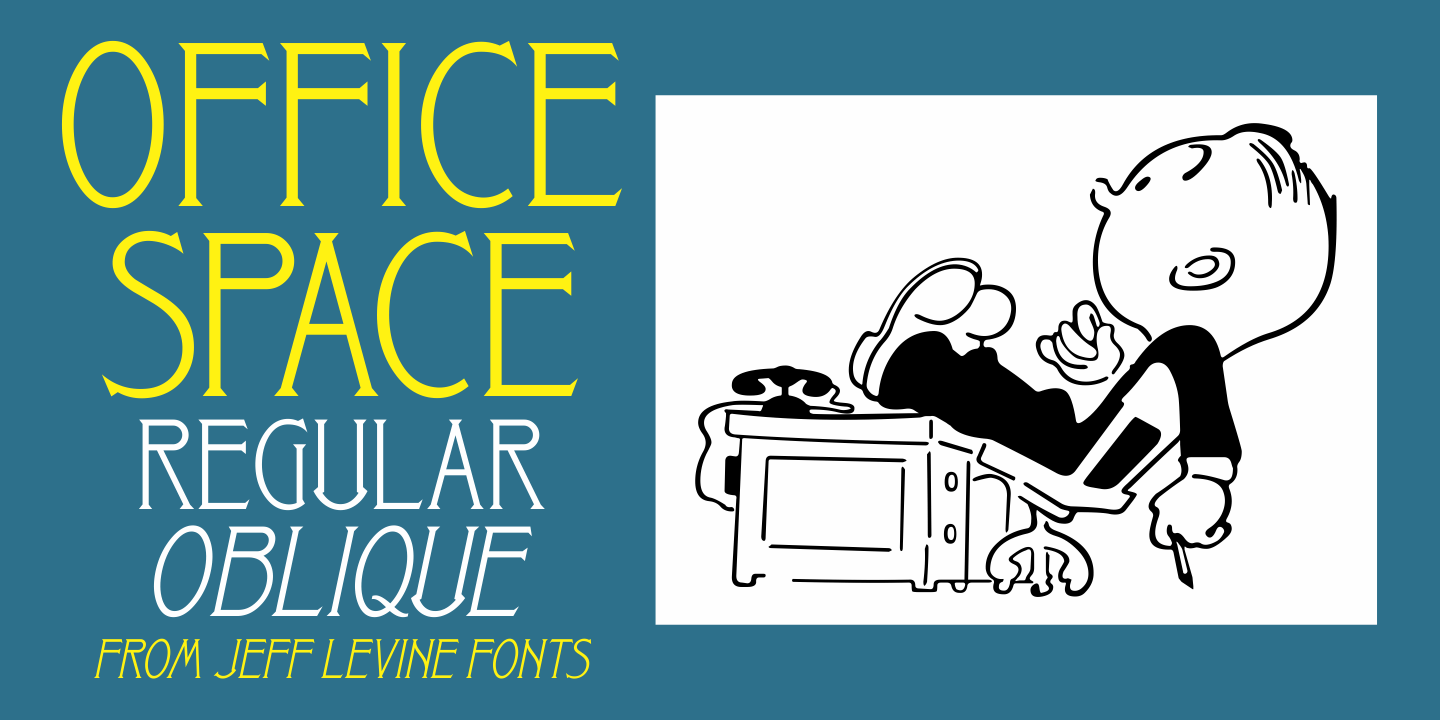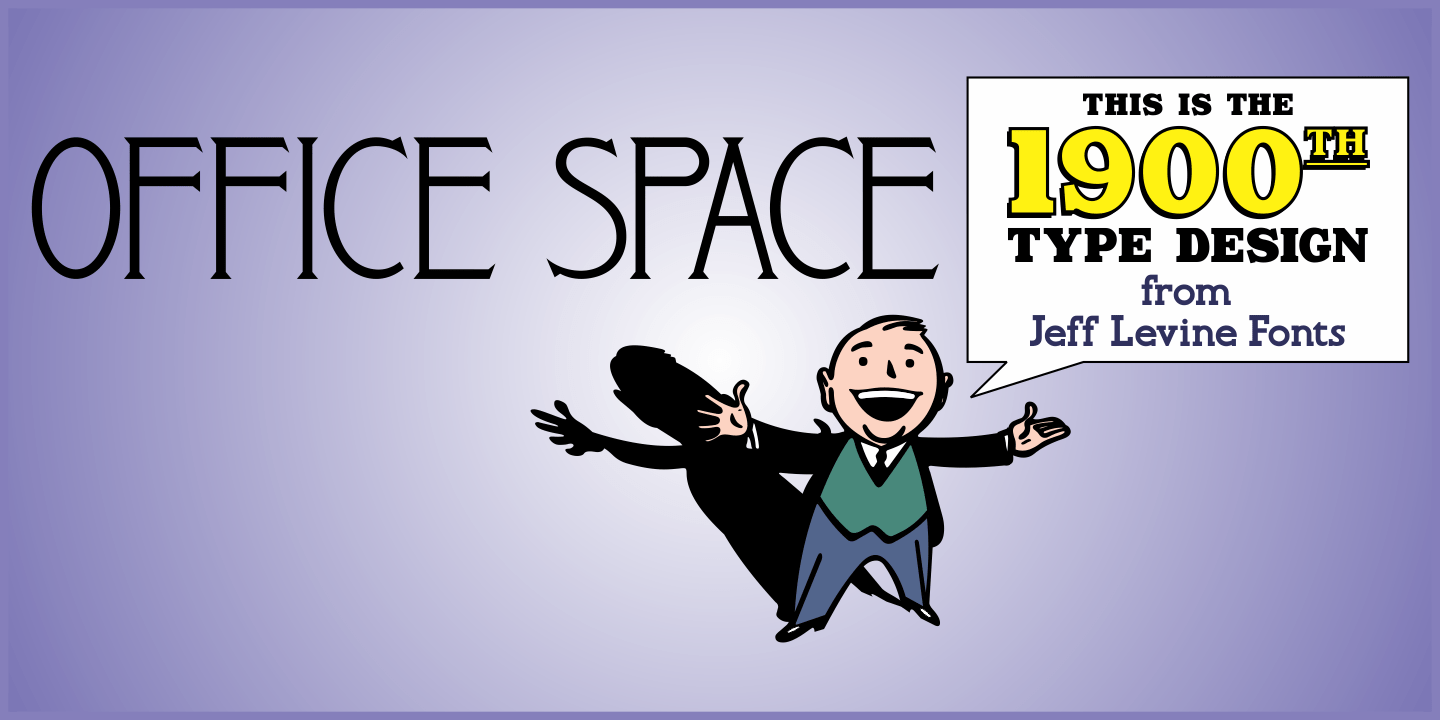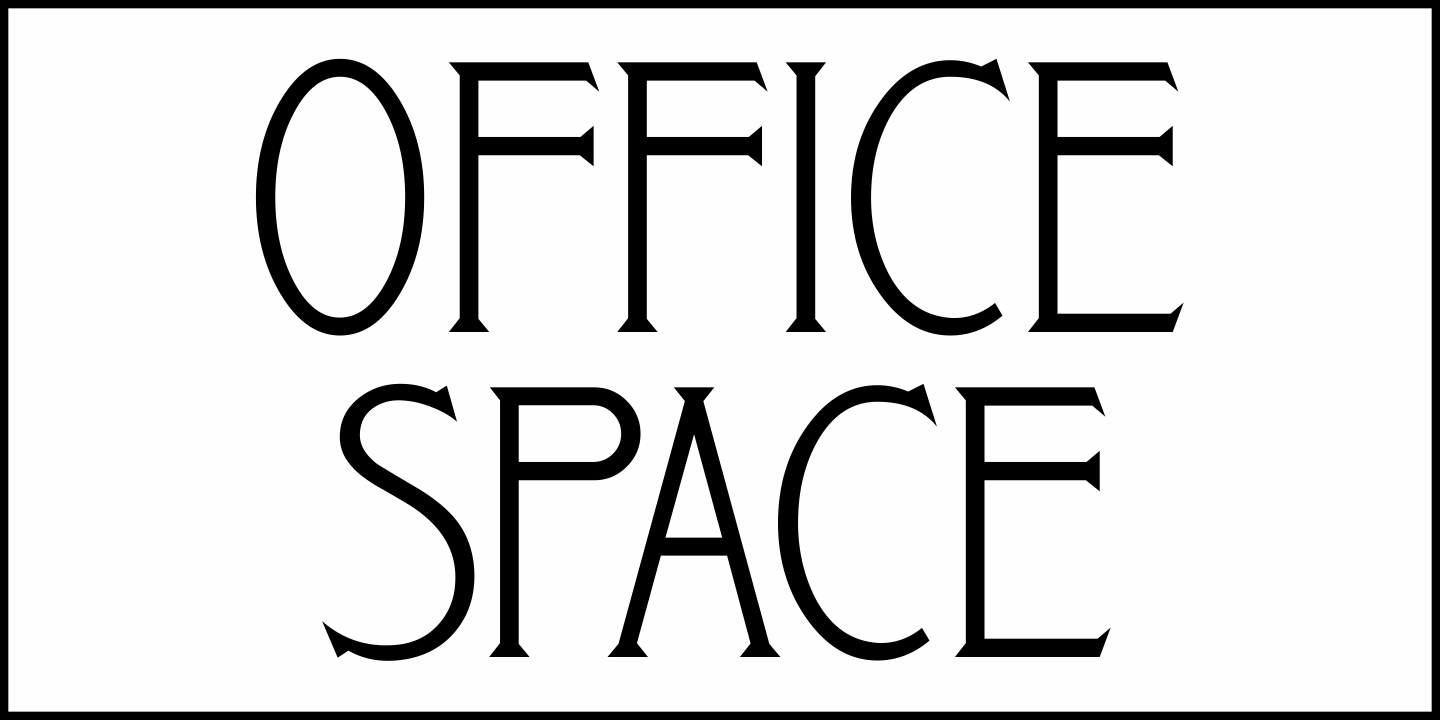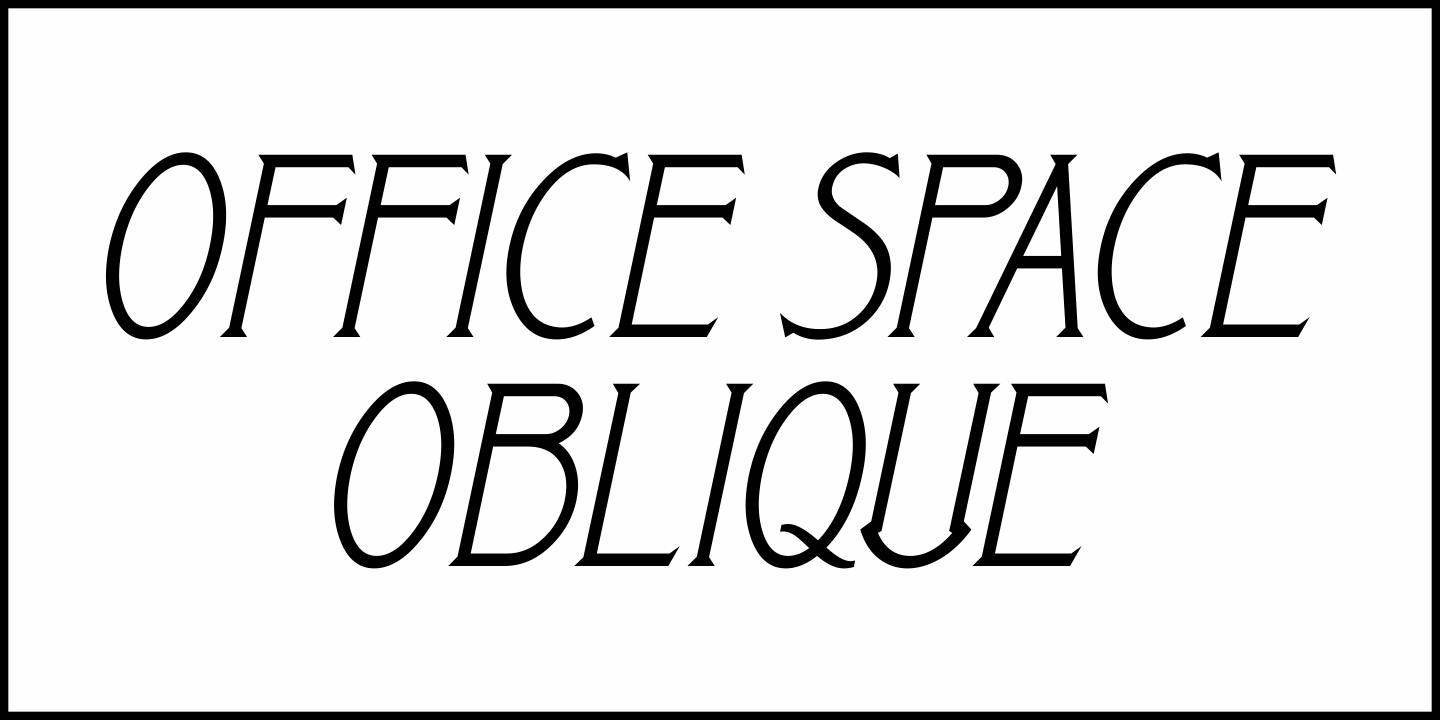
Office Space
Office Space JNL is based on “Condensed Edina” from the 1921 Miller & Richard type specimen book and is available in both regular and oblique versions.
This spurred serif Art Nouveau monoline font is a milestone – marking the 1900th font design released by Jeff Levine Fonts since its inception in January of 2006.
Office Space JNL Oblique
Office Space JNL Regular
Office Space by Jeff Levine Fonts